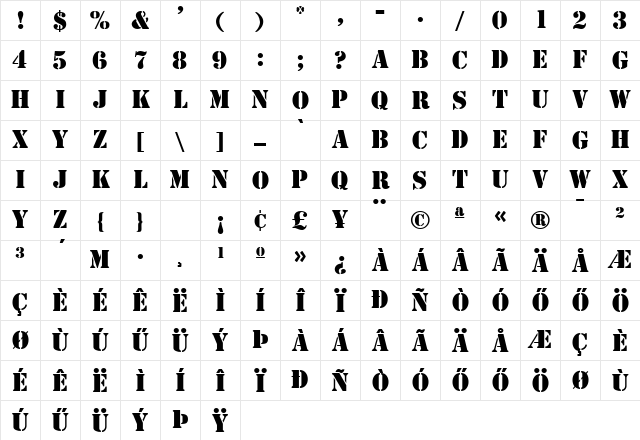
HStamp Normal Free Font
HStamp Normal
Design Context for HStamp
HStamp borrows the utilitarian aesthetic of stencil lettering, with its characteristic cutaways and no-frills construction lending an industrial edge.
Pro Tip: Use HStamp at large sizes on packaging, posters, or apparel where the stencil cutaways read clearly. Avoid small sizes where those gaps become visual noise.